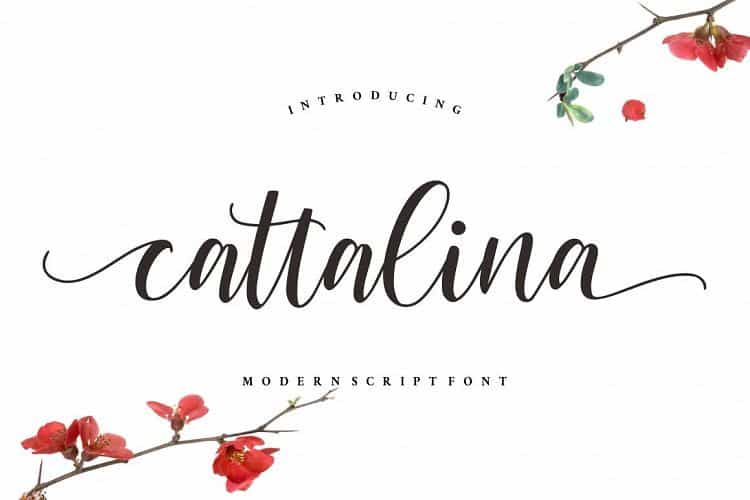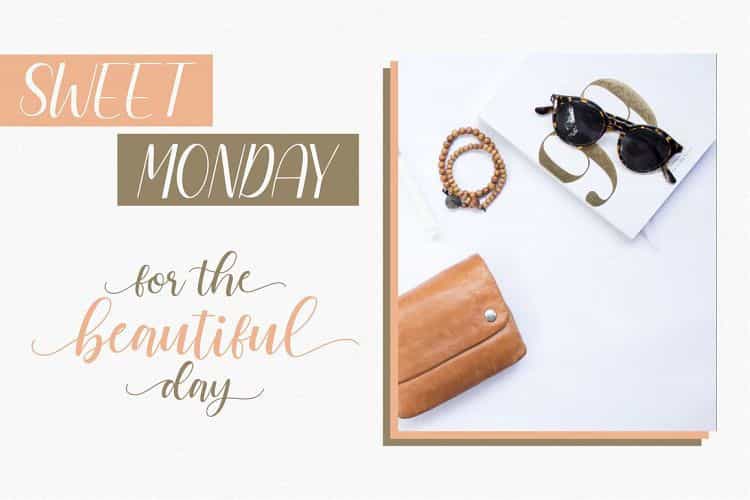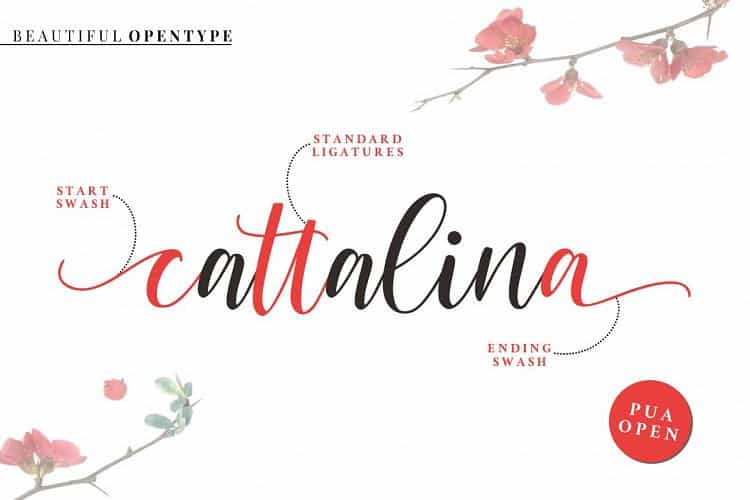
Discover Cattalina Script Font, part of the Calligraphy collection—a versatile and unique font perfect for adding a personal touch to your projects. Download it for free and enjoy crafting designs with style, from invitations to social media posts. This font is available exclusively for personal use, giving you the freedom to create without limits. Unlock your creativity with Cattalina Script Font today!
Introducing Cattalina Font. That is developed and posted by Good Java Studio. Cattalina a luxury font is a natural & modern handwritten font that comes in 7 weights that are clean and smooth. It is suitable for Logo, invitations, stationery, wedding function, social networks, advertisements, packaging of the product, product designs, labels, event photography, watermark, special occasions and more.